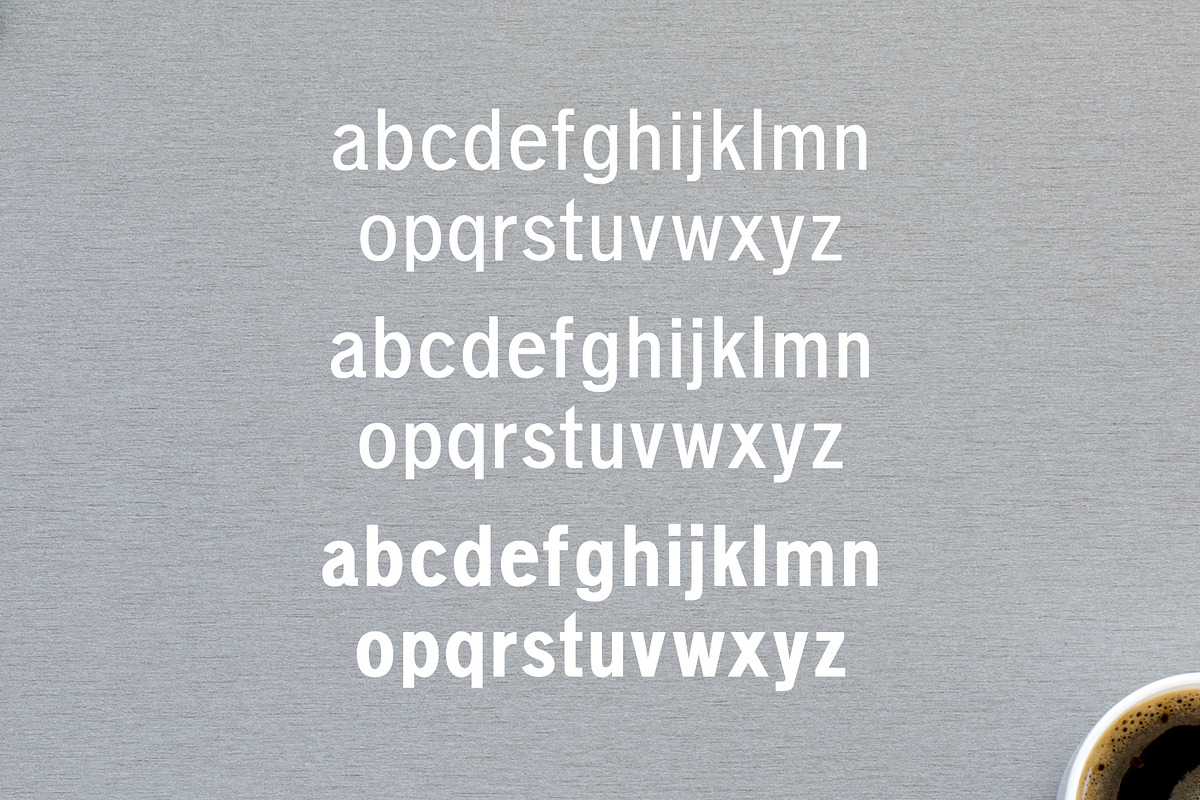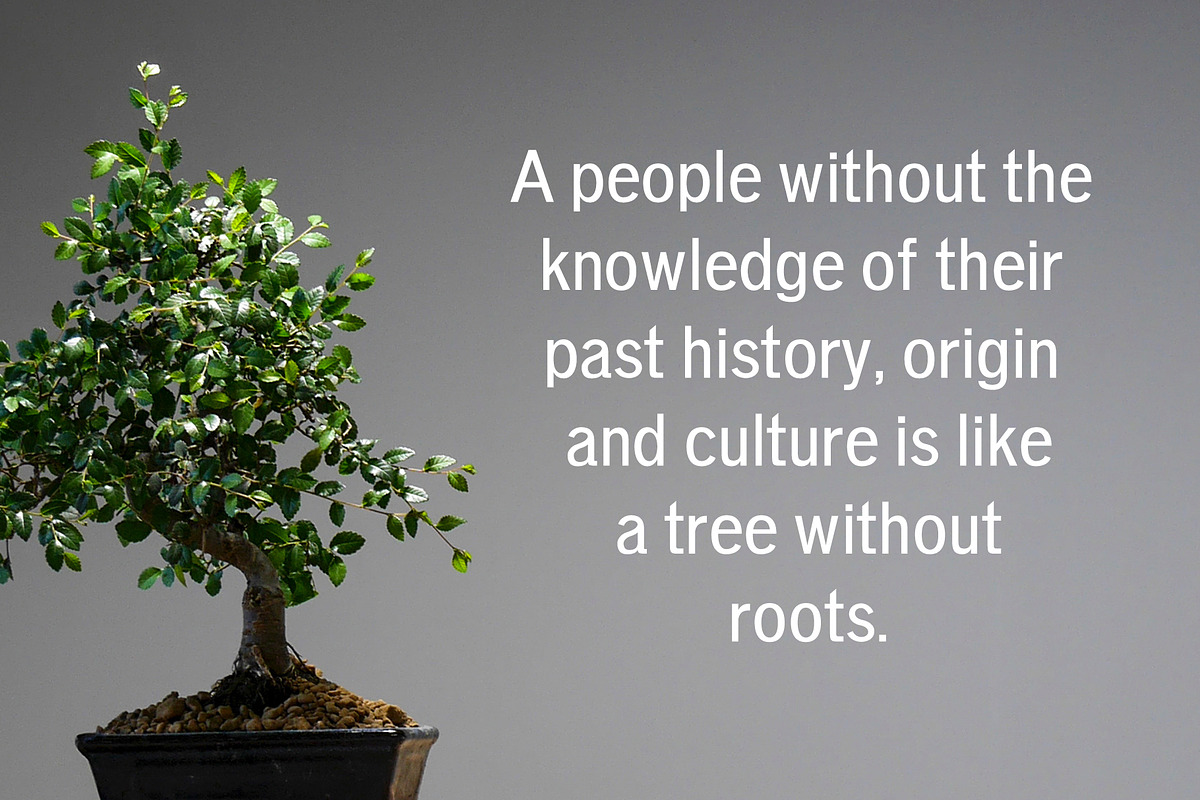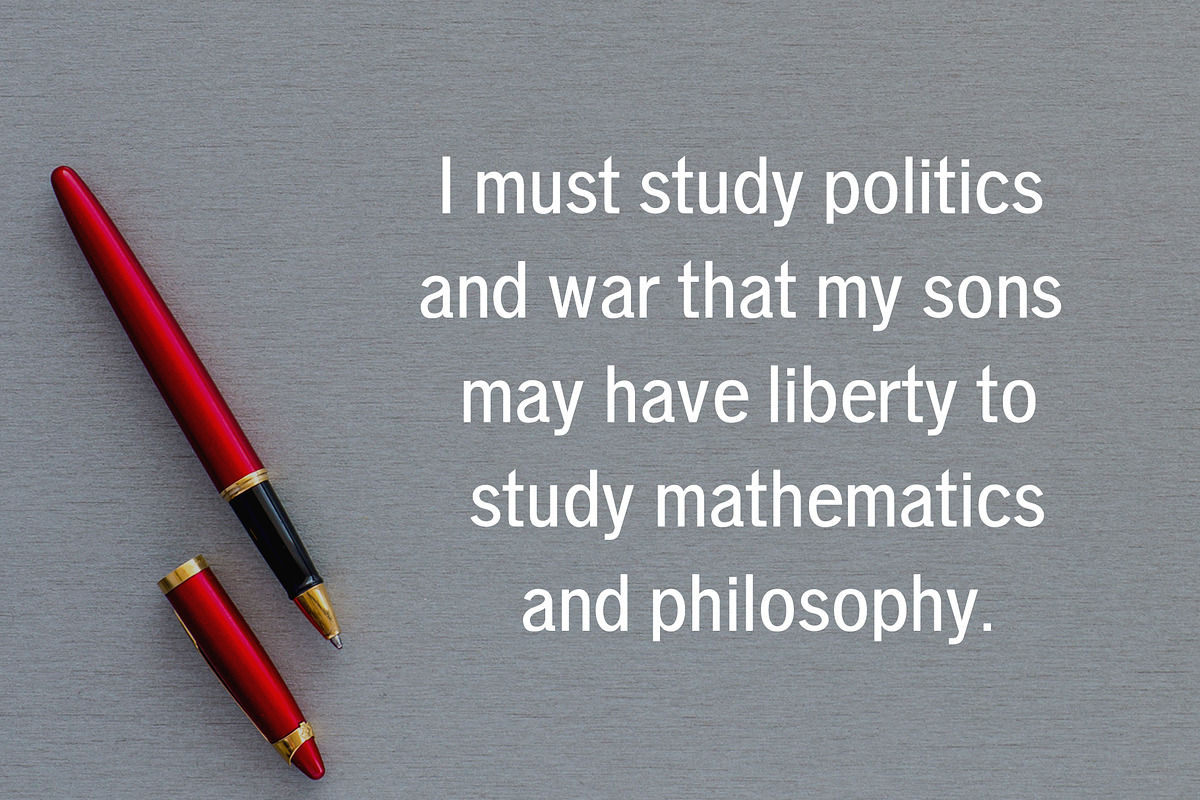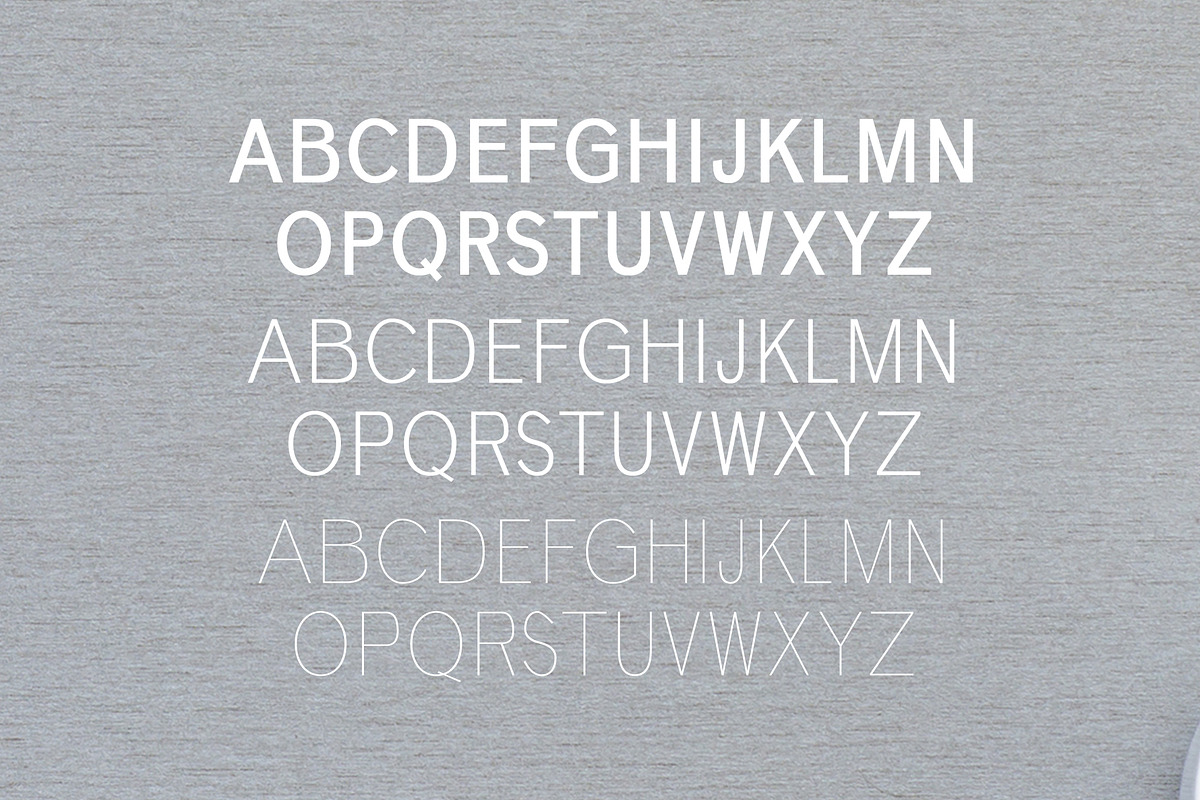
Deron Sans Serif Font Family Pack
Deron Sans Serif Font Family Pack by Creativetacos is a font selected for branding, posters, packaging, typography.
- Regular, Thin, Light, Outline, Bold, Black and Italic Weights
- Deron Font Features:
- Uppercase Multilingual Letters
- Lowercase Multilingual Letters
- Numbers & Punctuation
- Non English Characters ( Latin Supplement + Latin Extended A)
Why Deron Sans Serif Font Family Pack is worth a look
Deron Sans Serif Font Family Pack by Creativetacos fits naturally into Branding, posters, packaging, typography.